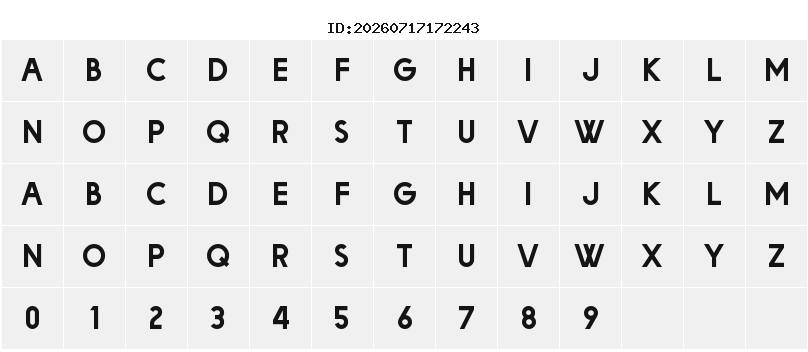
Big Orange Preview
• Font Name: Big Orange
• Font ID: Big Orange:Version 1.00
• Full Font Name: Big Orange
• Version: Version 1.00 November 3, 2015, initial release
• PostScript Name: BigOrange
About Big Orange.ttf
Big Orange.ttf is a modern, elegant sans-serif font designed for ultimate readability and visual harmony. Perfect for branding, headlines, web design, and print materials.